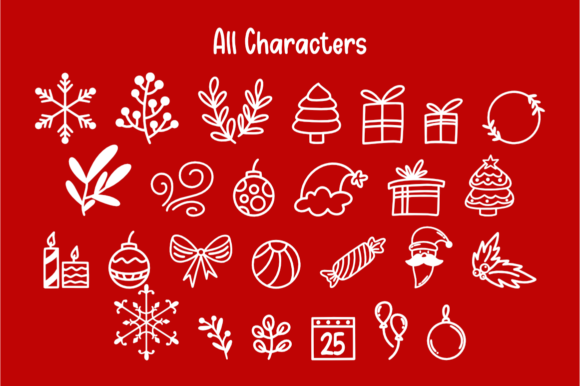
Deck the Halls with Christmas Party Font: A Festive Dingbats Delight
Are you looking for a font that captures the essence of the holiday season? Look no further than Christmas Party Font, a unique and adorable dingbats font that’s sure to add a touch of festive fun to your projects. In this article, we’ll dive into the details of this beautifully creative font, and explore how it can be used to make your holiday projects, Christmas cards, and festive designs stand out.
What is Christmas Party Font?
Christmas Party Font is a one-of-a-kind dingbats font that’s been designed with the holiday spirit in mind. This font is perfect for anyone looking to add a dash of festive cheer to their designs, whether it’s for a holiday project, a Christmas card, or any other type of project that needs to look cute and celebratory.
Key Features of Christmas Party Font
- Unique and Cute Design: Christmas Party Font boasts a beautifully creative design that’s sure to capture the essence of the holiday season.
- Festive and Fun: This font is perfect for adding a touch of festive fun to your projects, making it ideal for holiday designs, Christmas cards, and more.
- Dingbats Font: As a dingbats font, Christmas Party Font features a collection of decorative symbols, icons, and glyphs that can be used to add visual interest to your designs.
Uses for Christmas Party Font
Christmas Party Font is a versatile font that can be used for a wide range of projects, including:
- Holiday Projects: Add a touch of festive cheer to your holiday projects, such as party invitations, decorations, and gift tags.
- Christmas Cards: Create beautiful and unique Christmas cards that are sure to impress your friends and family.
- Festive Designs: Use Christmas Party Font to add a dash of festive fun to your designs, such as holiday-themed posters, flyers, and social media graphics.
- Crafting Projects: This font is perfect for crafters who love to make handmade cards, gift tags, and other paper crafts.
Tips for Using Christmas Party Font
Here are a few tips for using Christmas Party Font in your projects:
- Mix and Match: Combine Christmas Party Font with other fonts to create a unique and eye-catching design.
- Keep it Simple: Don’t be afraid to keep your design simple and clean, allowing the font to take center stage.
Christmas Party Font is a unique and adorable dingbats font that’s sure to add a touch of festive fun to your holiday projects, Christmas cards, and festive designs. With its beautifully creative design and easy-to-use format, this font is perfect for designers and crafters of all skill levels. So why not give it a try and deck the halls with a festive font that’s sure to delight?